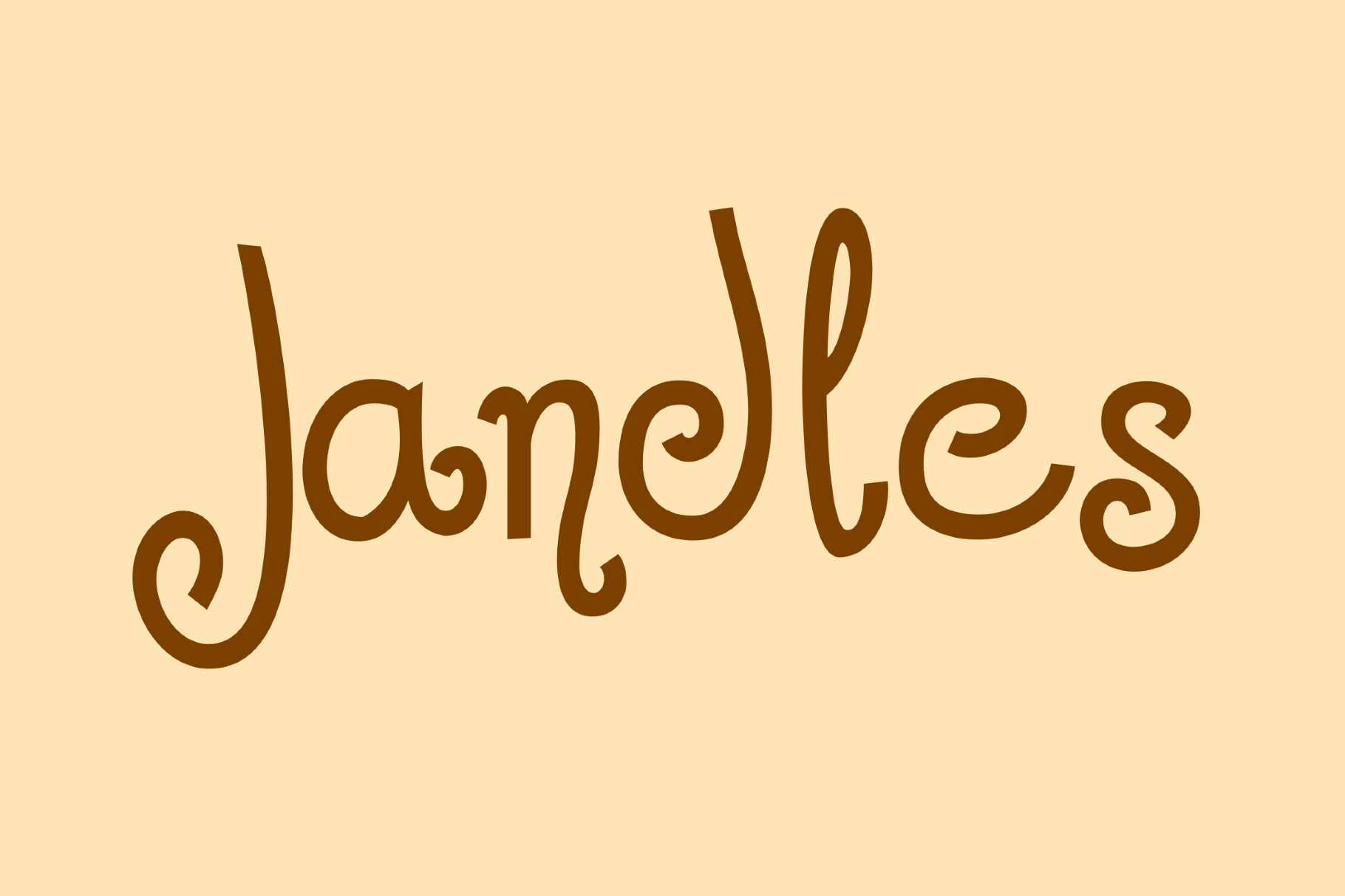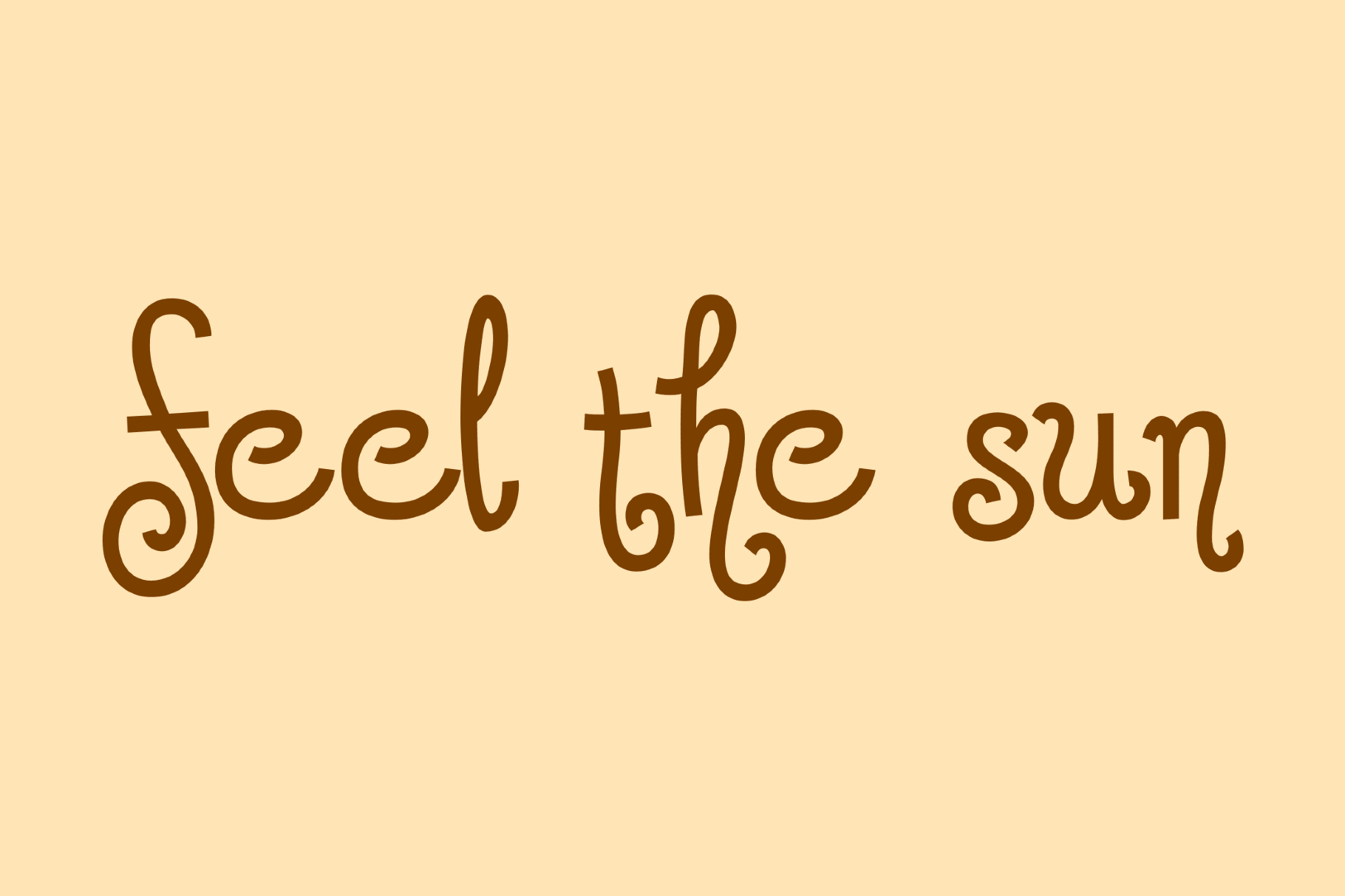
Jandles - Funny Script Font
Jandles
Jandles is a thin handwritten script with airy loops and an easy look. It was inspired by sketchbook notes, boutique café chalkboards and the casual grace of mid-century greeting cards. It works well for logo marks, packaging, menu headers, invitation pieces, social posts, product labels and editorial accents.